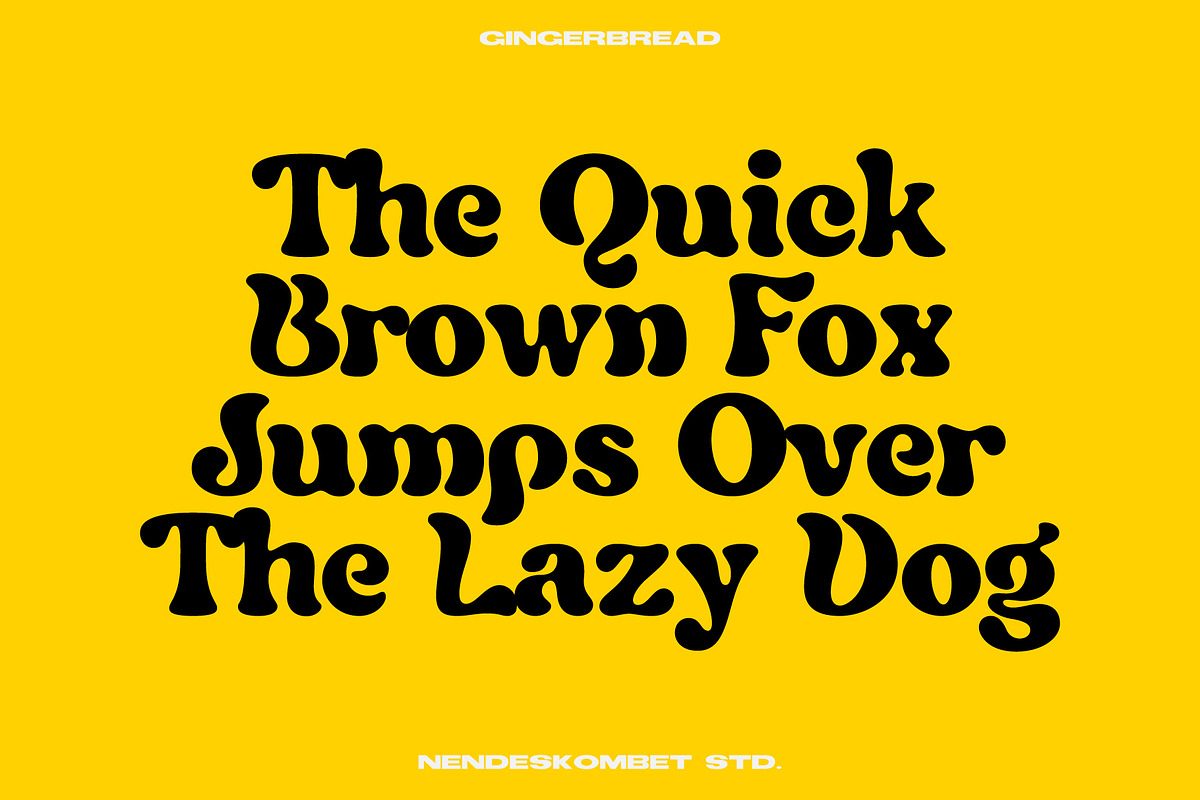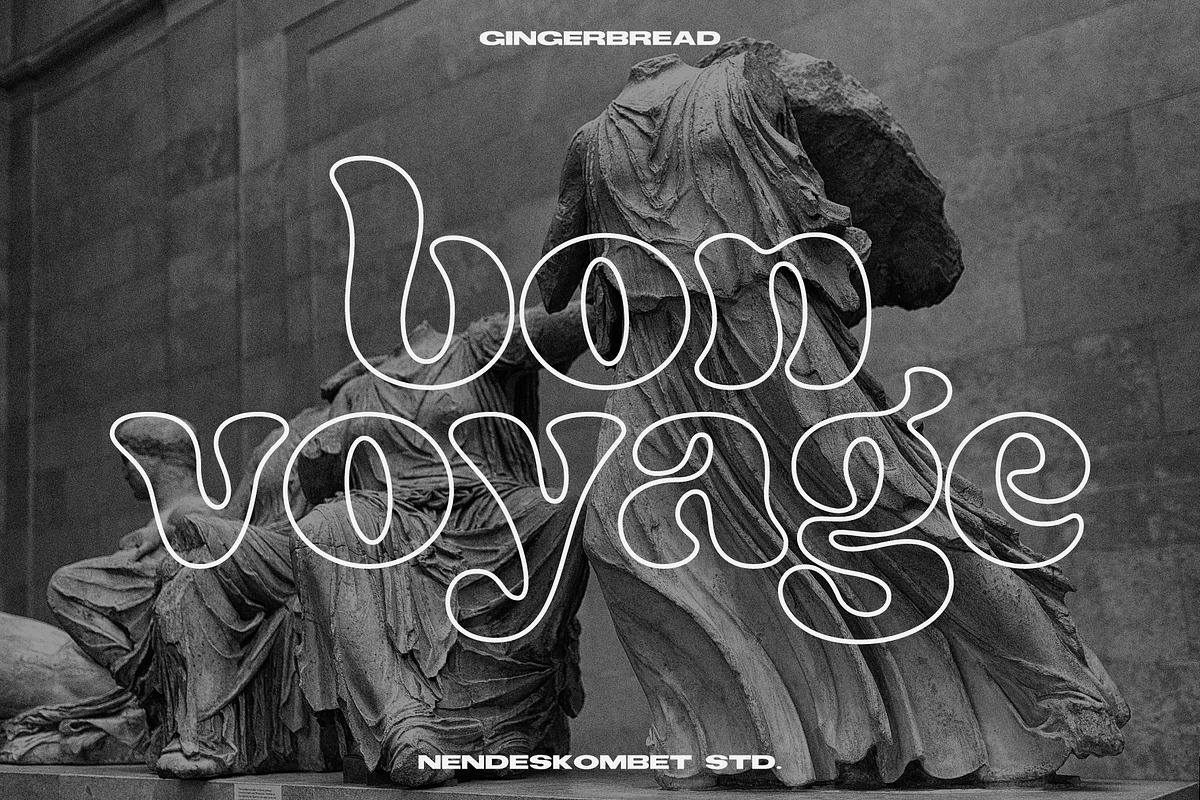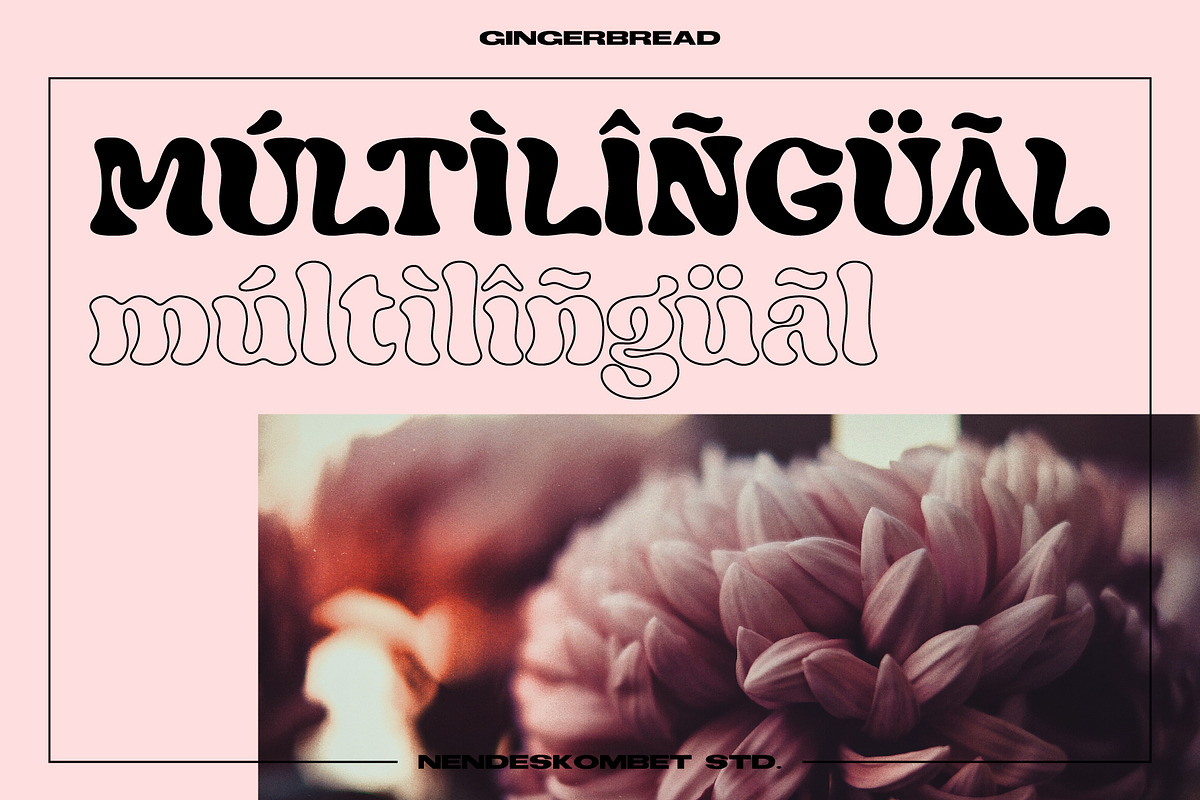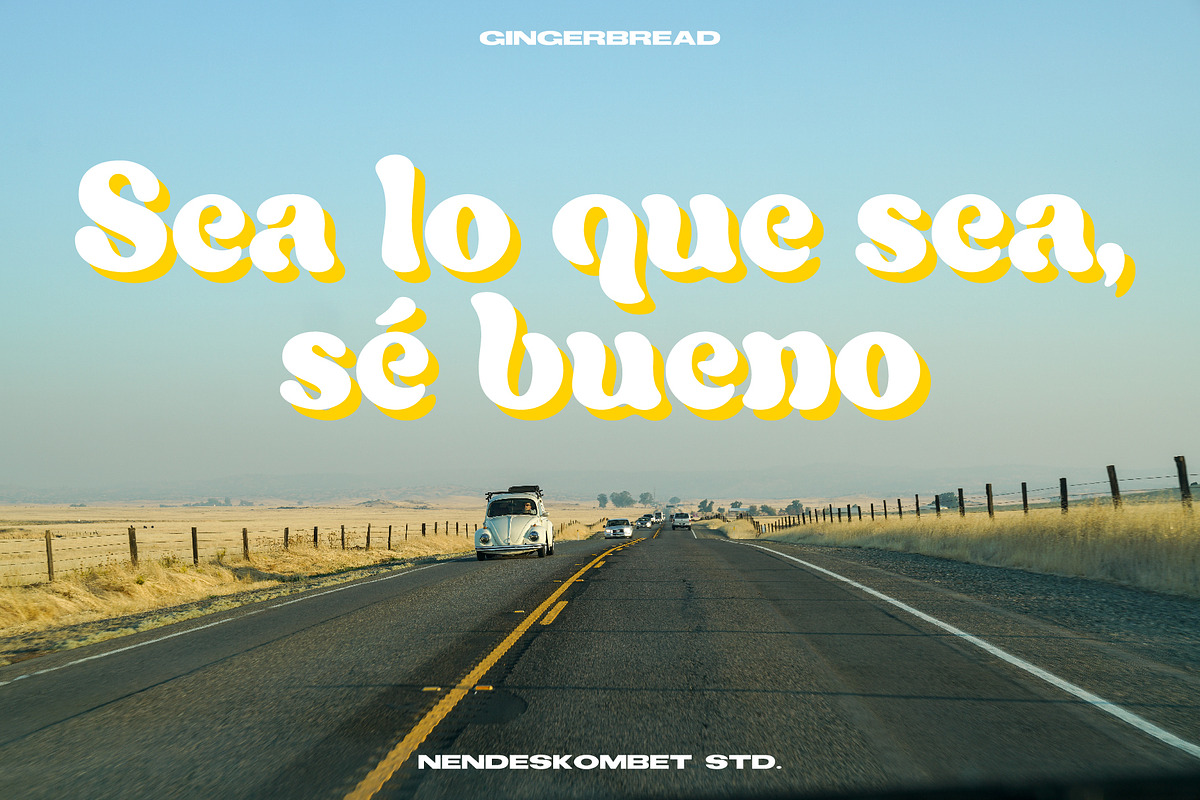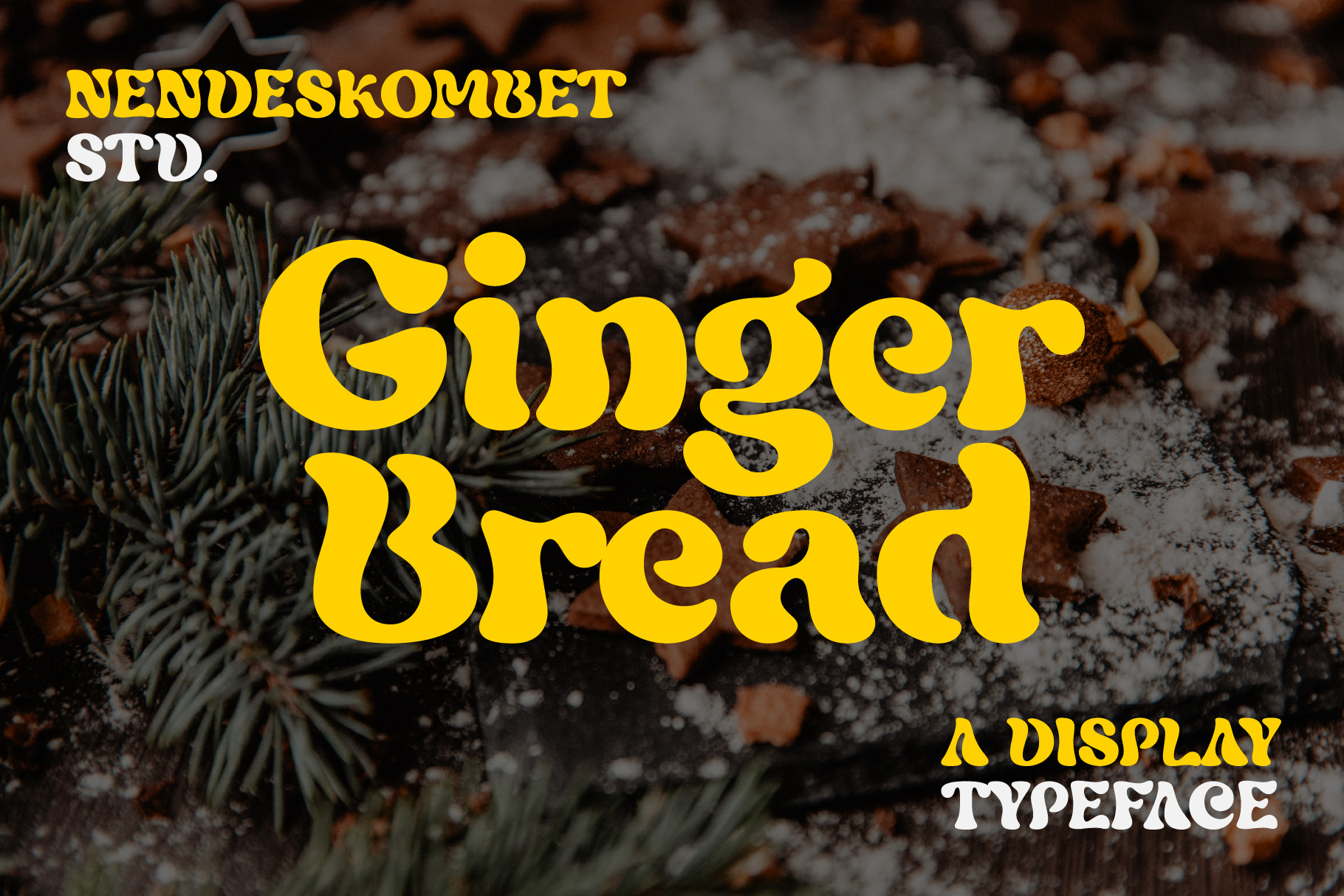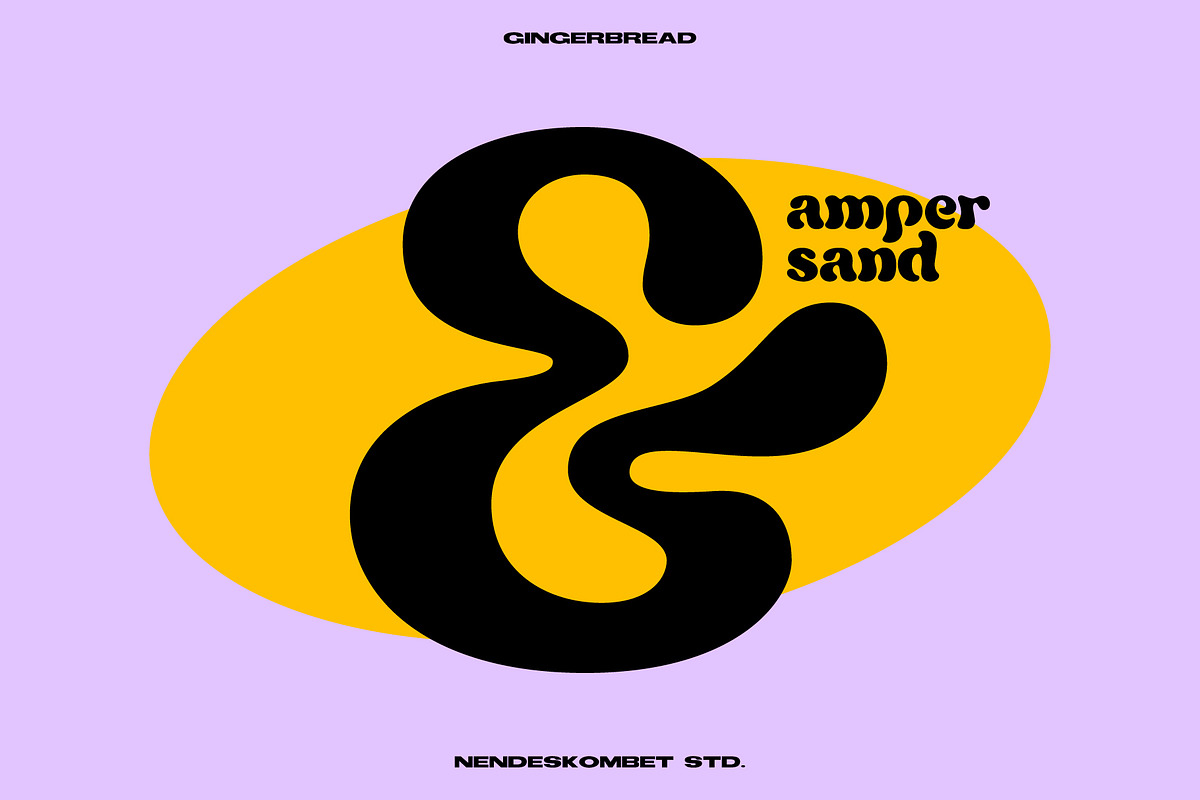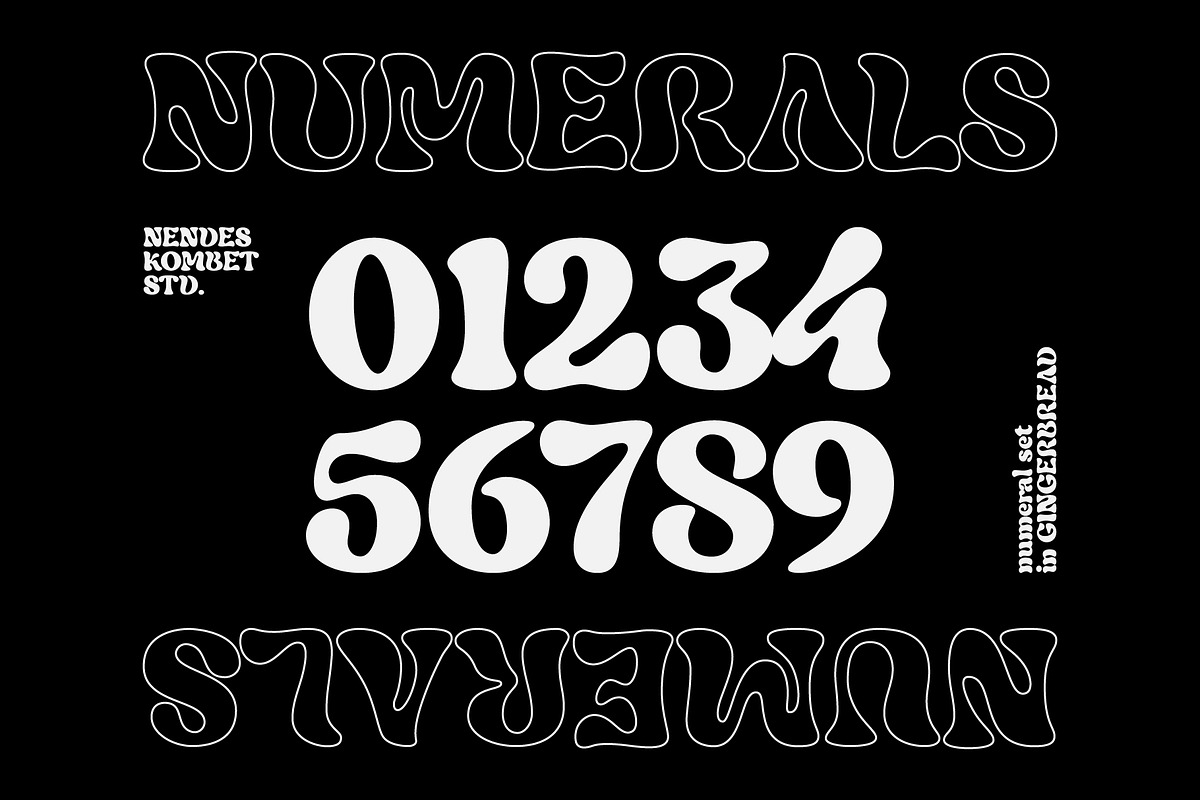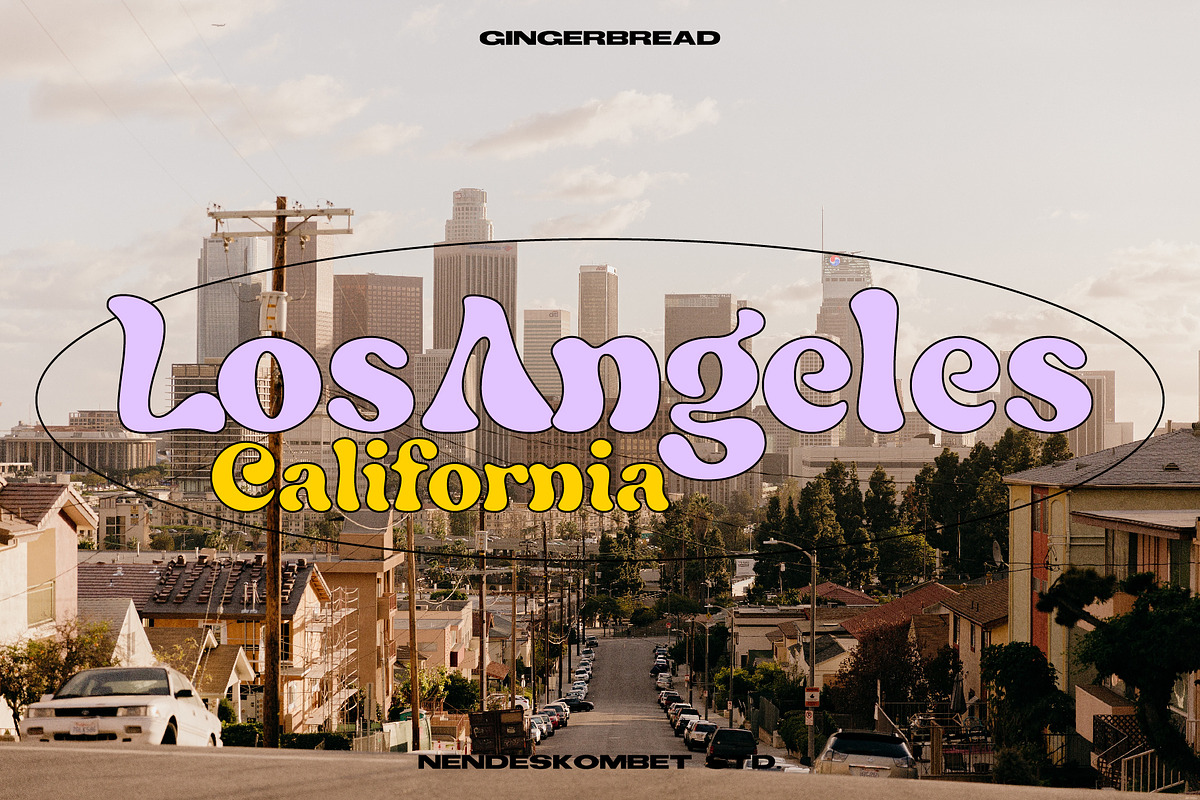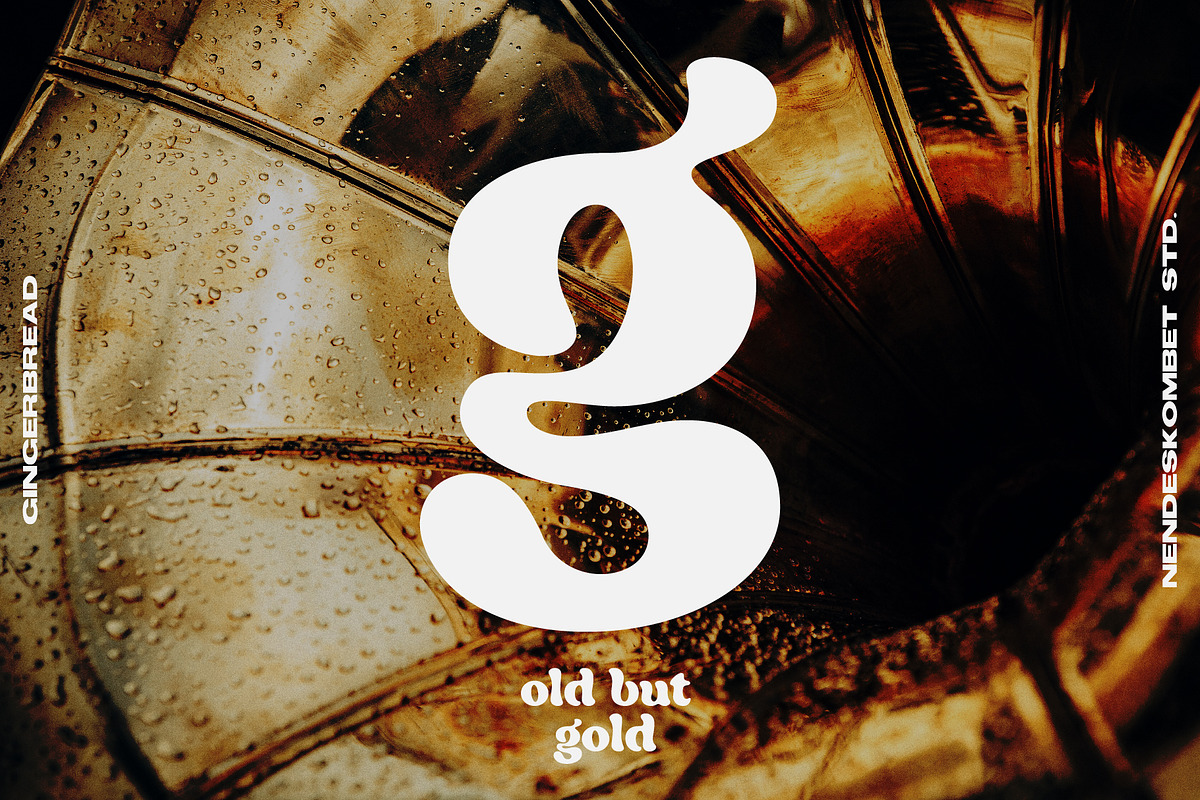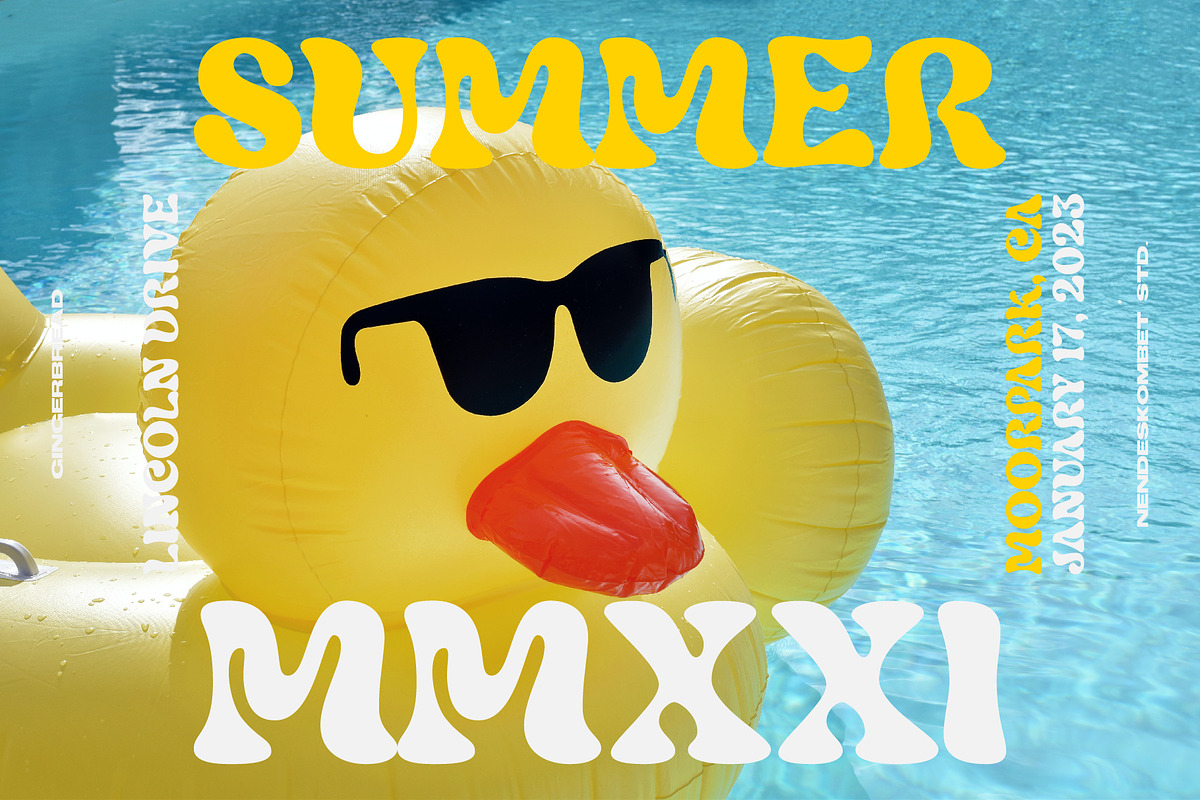
GingerBread - A Display Typeface
GingerBread - it's retro, bold, and unique, really ties together your piece to give it that retro feel. Perfect for make any project like header, quote, layout magazine and other.